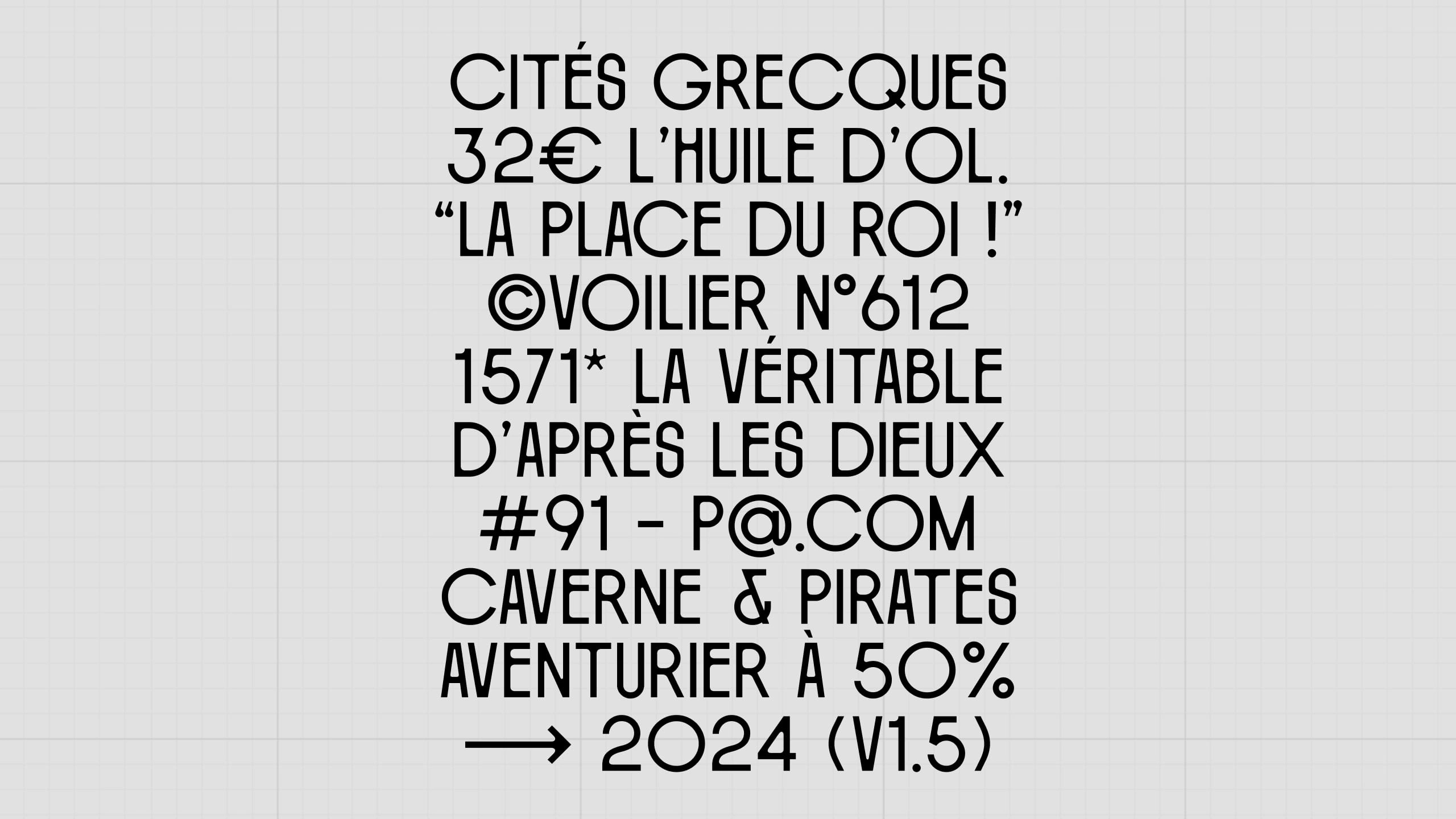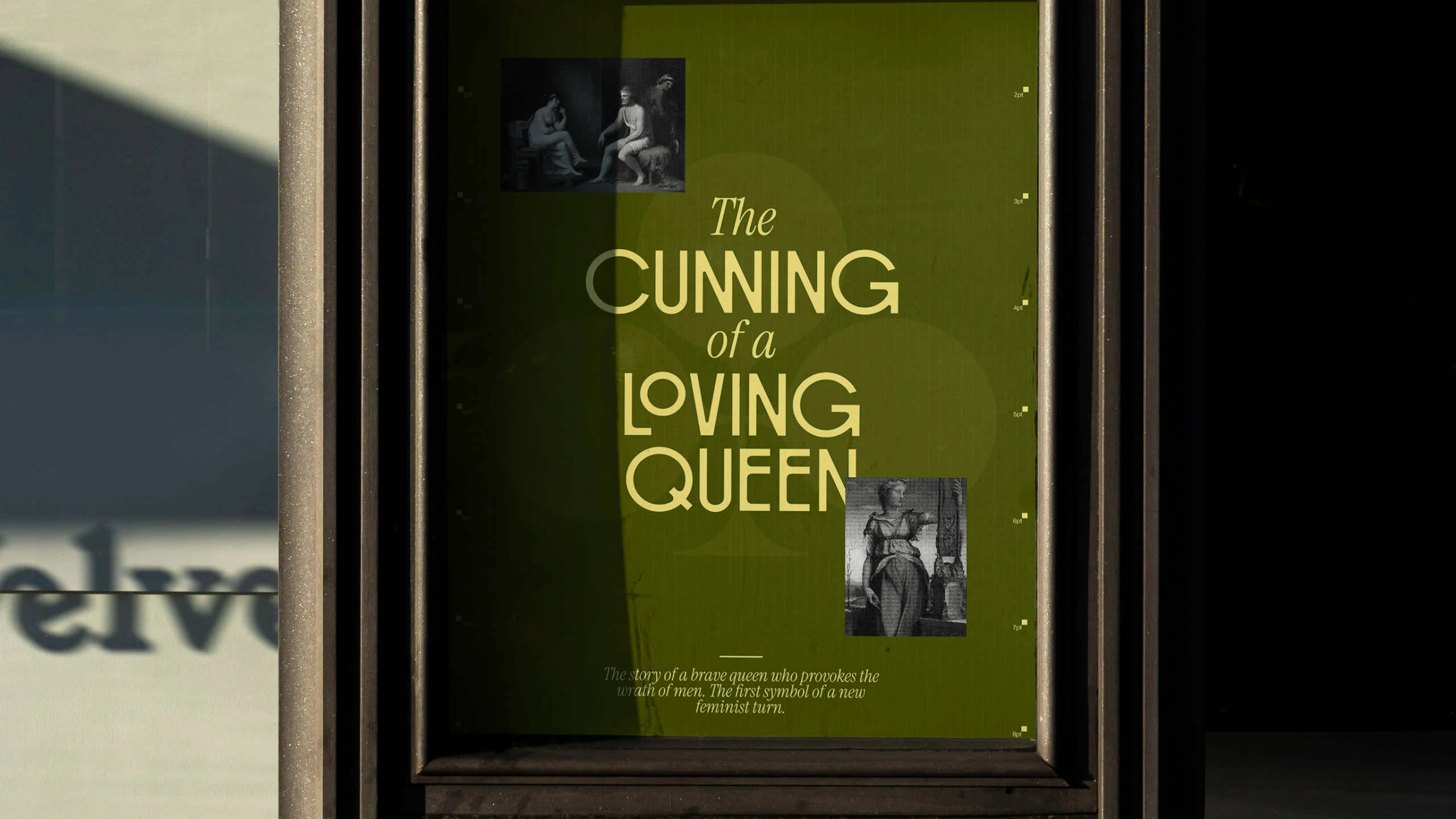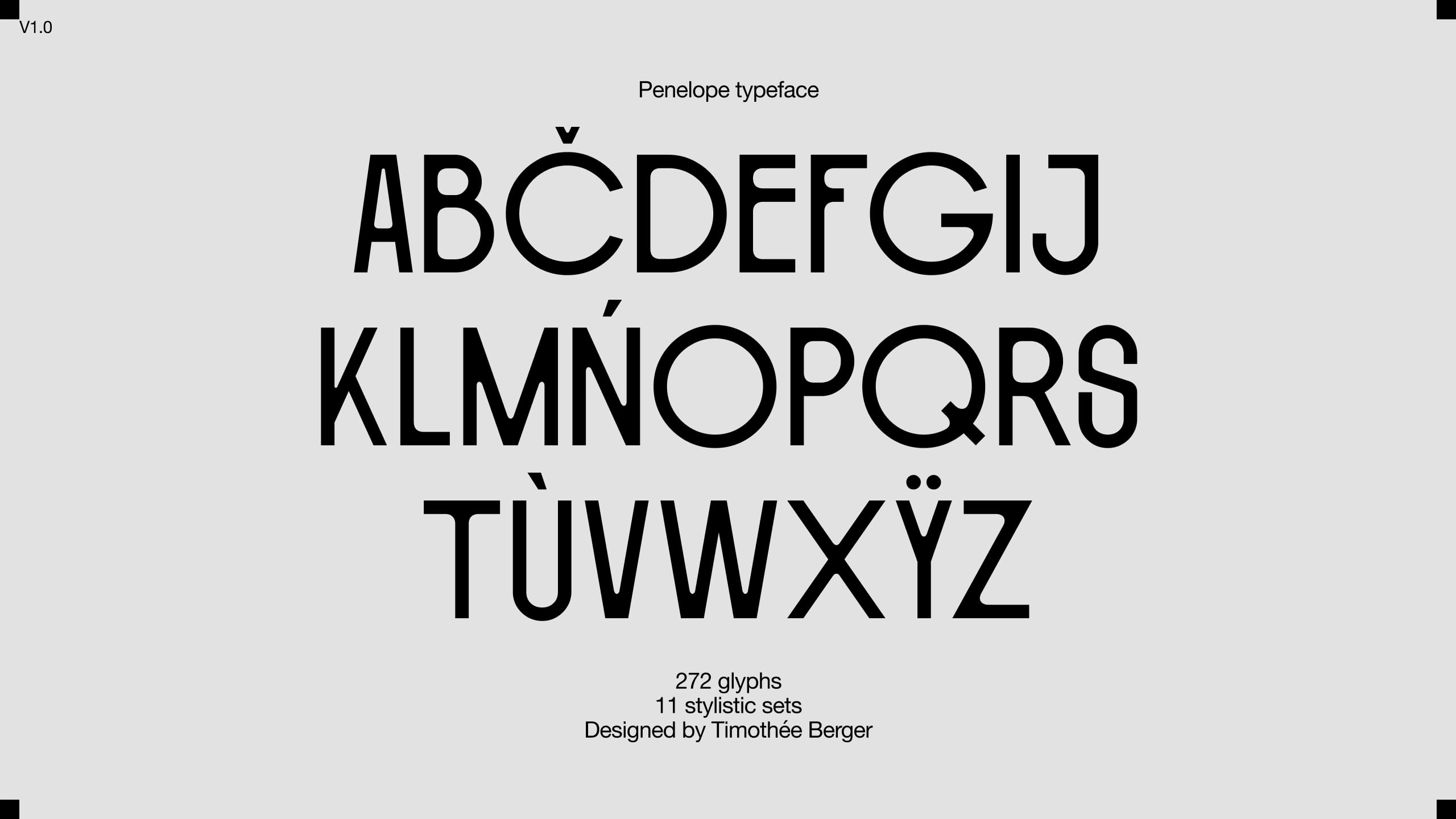
Penelope Typeface
Timothée Berger
Penelope Channels Two Iconic 20th-Century Art Movements with Modern Flair
"Penelope’s distinctive rhythm instantly caught my eye, vacillating between narrow and wide. Designed by Lyon-based Timothée Berger, the display typeface’s streamlined, imposing letterforms evoke Art Deco, while slight irregularities and sinuous joints give it an Art Nouveau vibe." — Kim Tidwell
Designed Penelope, a unique typeface combining Art Deco and Art Nouveau styles.